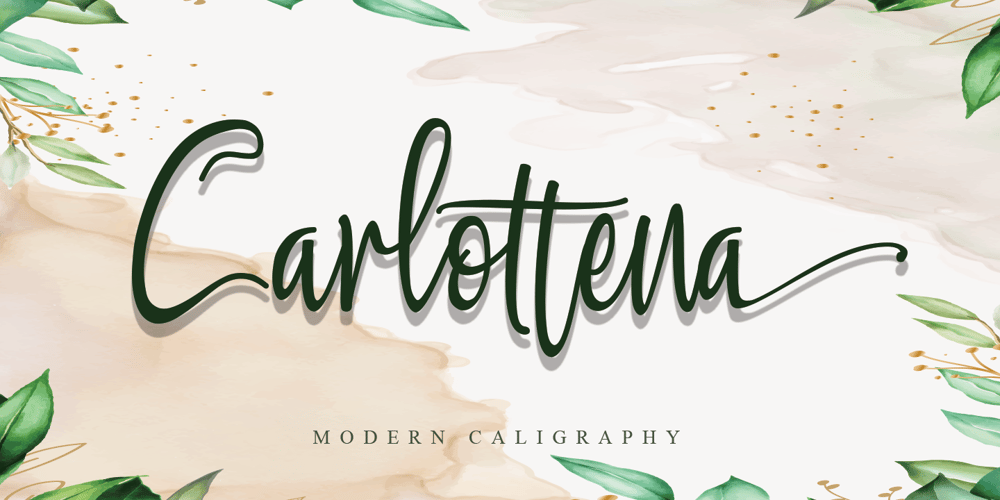
Carlottena Font Family was designed by Stefani Tri Rosa Setiati Christiana and published by Stefani Letter. Carlottena contains 2 styles and family package options. Carlottena is a beautiful and elegant script font. Its modern and classy look is perfect for logos, branding, invitations, social media posts and every other design that needs a handwritten touch and can be used for almost every design. This font is PUA encoded which means you can access all of the amazing glyphs and swashes with ease! It also features a wealth of special features including alternate glyphs and ligatures.